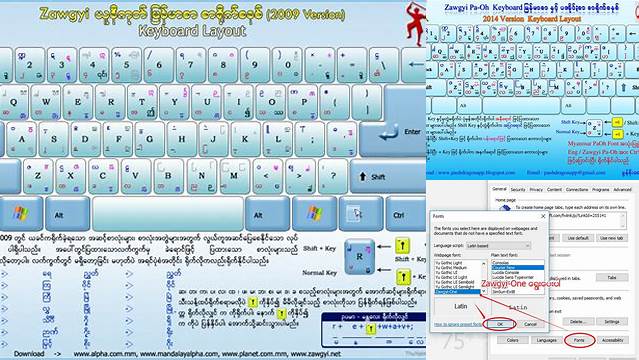
Zawgyi One Font: What is it and Why You Need It
Before we jump into the download and installation process, let’s talk about what the Zawgyi One font actually is and why it's so important for Burmese language users. Zawgyi One is essentially a non-Unicode font designed for typing Burmese script. It became incredibly popular because it allowed people to type in Burmese on computers even before Unicode support was widely available. While Unicode is the international standard now, Zawgyi One remains crucial for accessing older documents and websites that were created using this font. Understanding the significance of Zawgyi One helps appreciate its continued use and the need for its availability on various platforms, including Windows 10. This section will also explore the history of the font, its initial adoption, and the challenges it poses compared to Unicode fonts, giving a comprehensive view of why it's still relevant today. We'll also touch upon the differences between Zawgyi One and Unicode fonts, highlighting the benefits and drawbacks of each.
Zawgyi One vs. Unicode: Understanding the Differences
As we mentioned earlier, Zawgyi One is a non-Unicode font, while Unicode is the international standard. Understanding the differences between these two is crucial for long-term compatibility and accessibility. This section will delve into the technical distinctions between Zawgyi One and Unicode, explaining why Unicode is the preferred standard for modern applications and web content. We'll discuss the advantages of Unicode, such as its ability to represent a wide range of characters and its support across different platforms and devices. We'll also explore the challenges of using Zawgyi One, particularly with regards to searchability and data exchange. Ultimately, this section aims to provide a clear understanding of why transitioning to Unicode is beneficial for Burmese language users in the long run.